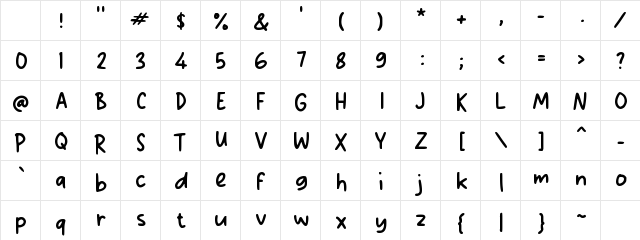
Complete Obreg Kido Regular glyph index. Displaying only characters natively supported by Obreg Kido Regular font.
Obreg Kido is a composed and adaptable typeface that performs quietly and consistently across a wide range of design contexts.